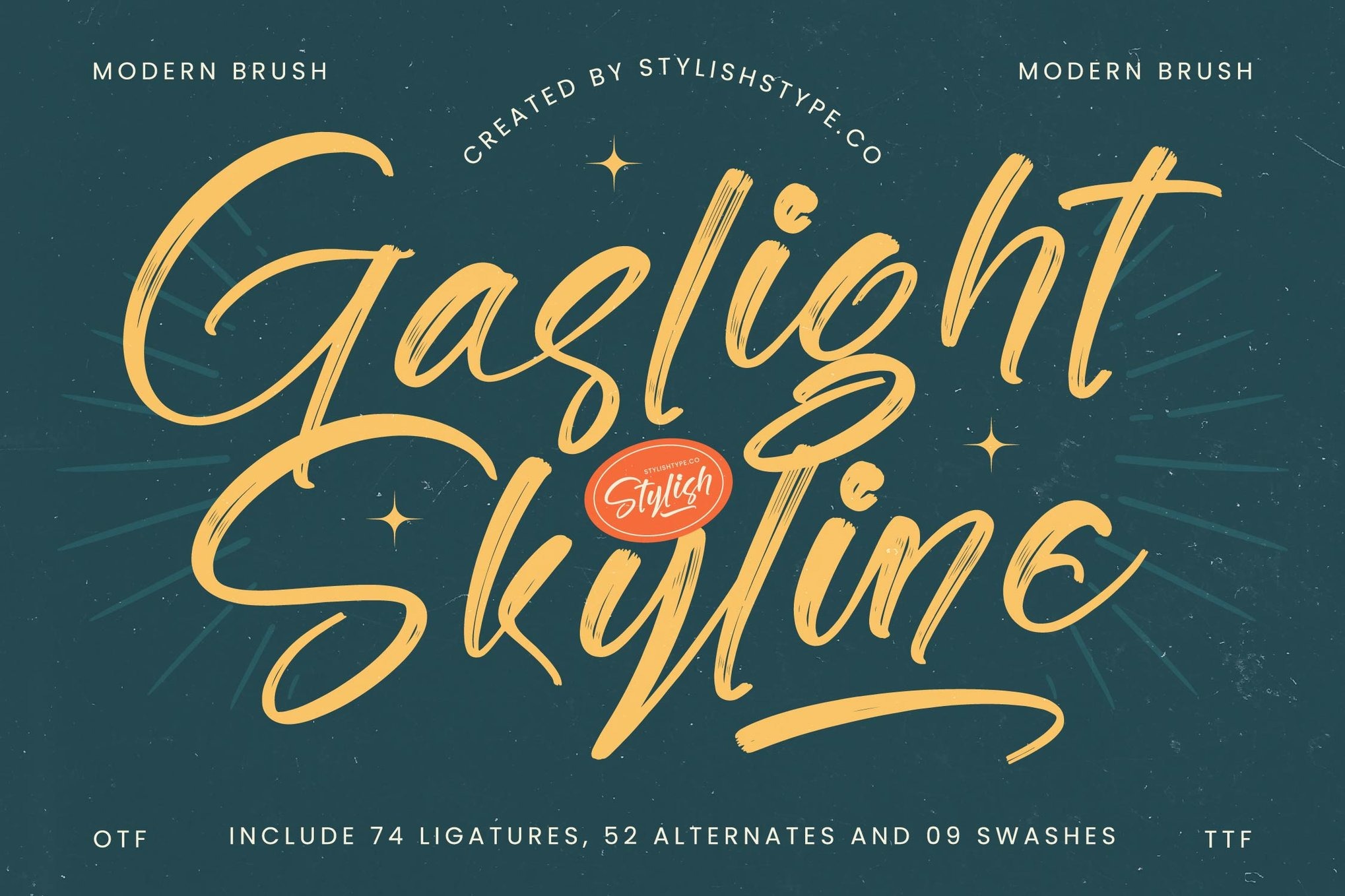
Gaslight Skyline Font
Gaslight Skyline Font is a distinctive and expressive font crafted to bring personality, structure, and creative energy into your projects. Gaslight Skyline – Modern Brush Font Script, a captivating typeface that effortlessly blends contemporary style with an authentic, handcrafted appeal. This dynamic brush script radiates an energetic and expressive character, perfect for projects demanding a touch of personal flair and modern sophistication. Its organic flow and artistic strokes immediately draw the eye, establishing a memorable visual statement right from the start.
Experience unparalleled design flexibility with the rich features packed into Font Gaslight Skyline – Modern Brush Font Script. Boasting 74 ligatures, 52 alternates, and 9 swashes, this font provides extensive customization to ensure your text truly stands out. With its extensive multilingual support, Font Gaslight Skyline – Modern Brush Font Script adapts seamlessly across global markets, making it incredibly versatile for international projects.
Perfectly suited for a diverse range of creative endeavors, Font Gaslight Skyline – Modern Brush Font Script excels where impact and personality are paramount. It is an ideal choice for luxury branding, eye-catching packaging design, engaging editorial layouts, and invitations that leave a lasting impression. From distinctive logos to dynamic headlines and social media graphics, this font effortlessly elevates brand identity with its unique charm.
Transform your design vision into a stunning reality with Font Gaslight Skyline – Modern Brush Font Script. This font isn’t just a collection of letters; it’s an invitation to infuse your work with passion and style, ensuring an unforgettable impact. Elevate your next project, capture attention, and convey your message with the authentic elegance that only Font Gaslight Skyline – Modern Brush Font Script can deliver.